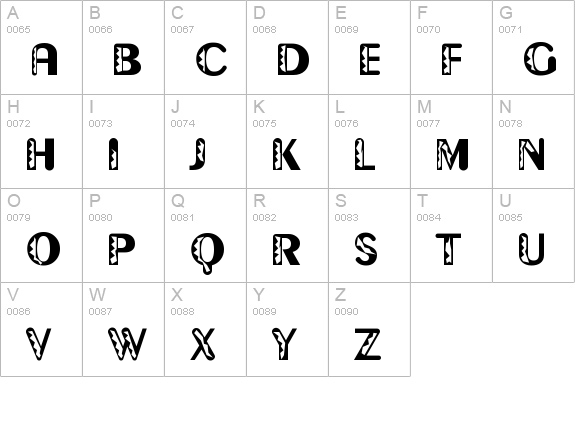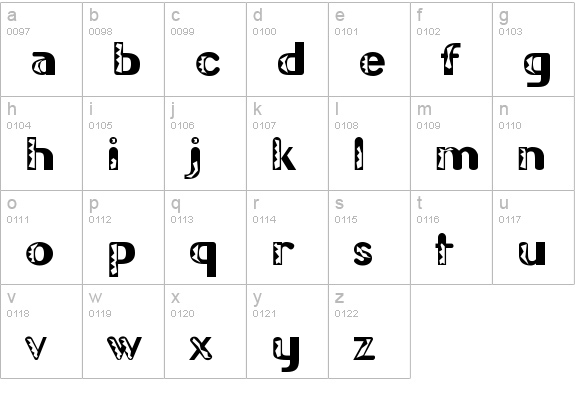
Gilgongo Doro is a stunning and versatile display font that is sure to make a statement in any design project. This bold and eye-catching font features intricate details and unique character shapes that set it apart from the rest. With its elegant yet modern style, Gilgongo Doro is perfect for branding, headlines, posters, and more. What makes Gilgongo Doro even more appealing is that it is available for free download at FontsMarket.com. This means you can easily add this beautiful font to your collection without any cost. Don't miss out on the opportunity to enhance your designs with the striking Gilgongo Doro font today!